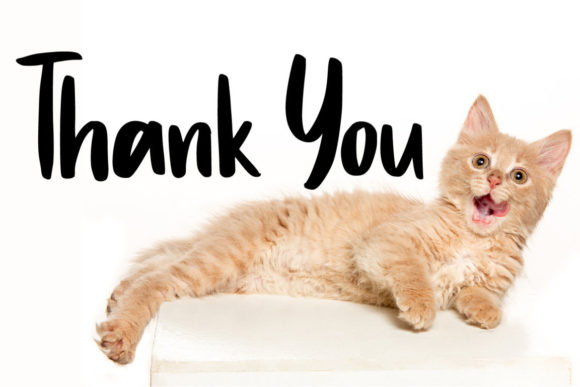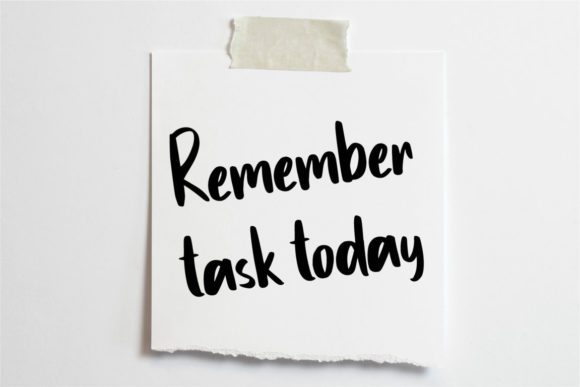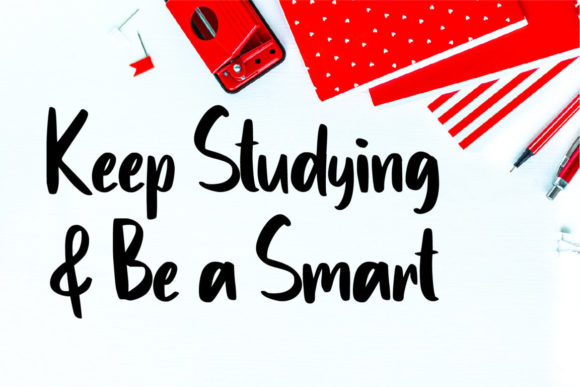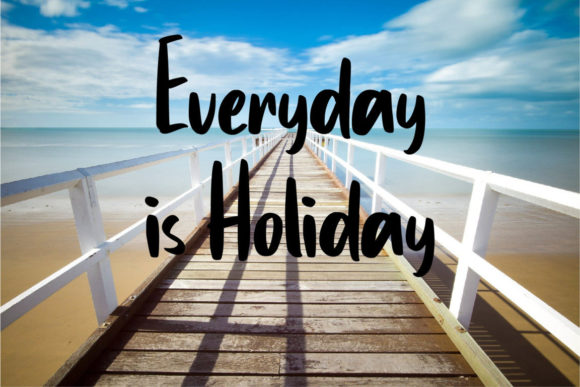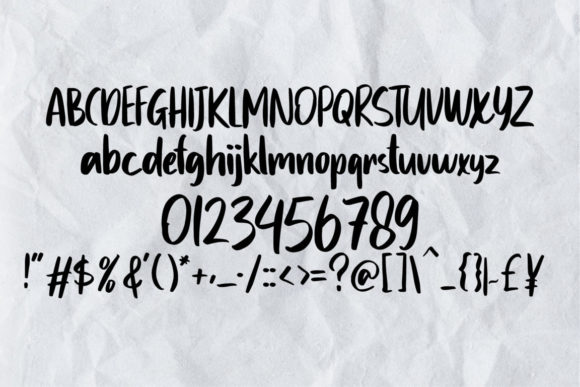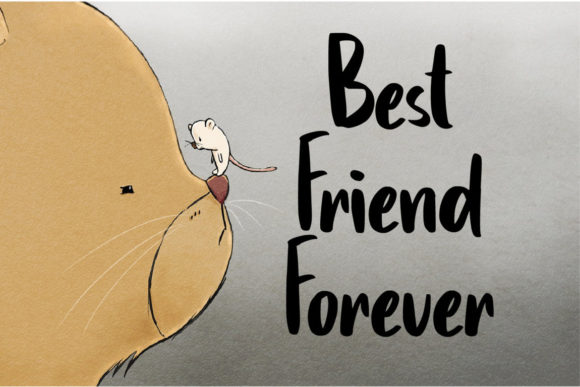
Hello Berlin Font: A Cursive and Bold Handwritten Font for Your Designs
Hello Berlin is a stunning cursive and bold handwritten font that can instantly elevate your designs with its strong, confident, and dynamic vibe. This font is perfect for designers and crafters looking to add a touch of nostalgia and personality to their work. In this article, we’ll dive into the features and benefits of Hello Berlin Font, and explore how you can use it to take your designs to the next level.
The Characteristics of Hello Berlin Font
Hello Berlin Font is a beautifully crafted cursive and bold handwritten font that exudes confidence and dynamism. Its strong and fluid strokes make it perfect for creating eye-catching designs that demand attention. The font’s cursive style gives it a sense of elegance and sophistication, while its boldness ensures that it stands out from the crowd.
Adding Nostalgic Character to Your Designs
One of the standout features of Hello Berlin Font is its ability to add tons of nostalgic character to your designs. The font’s vintage-inspired feel makes it perfect for creating designs that evoke a sense of nostalgia and warmth. Whether you’re working on a branding project, a packaging design, or a digital product, Hello Berlin Font can help you create a design that feels both classic and timeless.
Hello Berlin Font is a versatile font that can be used by designers and crafters for a wide range of projects. Whether you’re creating social media graphics, blog posts, or marketing materials, this font can help you add a touch of personality and style to your work. Its bold and cursive style makes it perfect for creating eye-catching headlines, titles, and captions that grab attention.
Key Features of Hello Berlin Font
- Cursive and bold handwritten font: Hello Berlin Font is a beautifully crafted cursive and bold handwritten font that adds a touch of elegance and sophistication to your designs.
- Strong and confident vibe: The font’s strong and fluid strokes give it a confident and dynamic vibe that’s perfect for creating eye-catching designs.
- Nostalgic character: Hello Berlin Font has a vintage-inspired feel that adds tons of nostalgic character to your designs.
- Perfect for designers and crafters: This font is versatile and can be used by designers and crafters for a wide range of projects, from social media graphics to marketing materials.
Tips for Using Hello Berlin Font
Here are some tips for using Hello Berlin Font in your designs:
- Use it for headlines and titles: Hello Berlin Font is perfect for creating eye-catching headlines and titles that grab attention.
- Pair it with other fonts: Experiment with pairing Hello Berlin Font with other fonts to create a unique and visually appealing design.
- Use it for branding and packaging: The font’s vintage-inspired feel makes it perfect for creating branding and packaging designs that evoke a sense of nostalgia and warmth.
Hello Berlin Font is a stunning cursive and bold handwritten font that can instantly elevate your designs with its strong, confident, and dynamic vibe. Its nostalgic character and versatility make it perfect for designers and crafters looking to add a touch of personality and style to their work. With its wide range of uses and applications, Hello Berlin Font is a must-have font for any designer or crafter looking to take their designs to the next level.